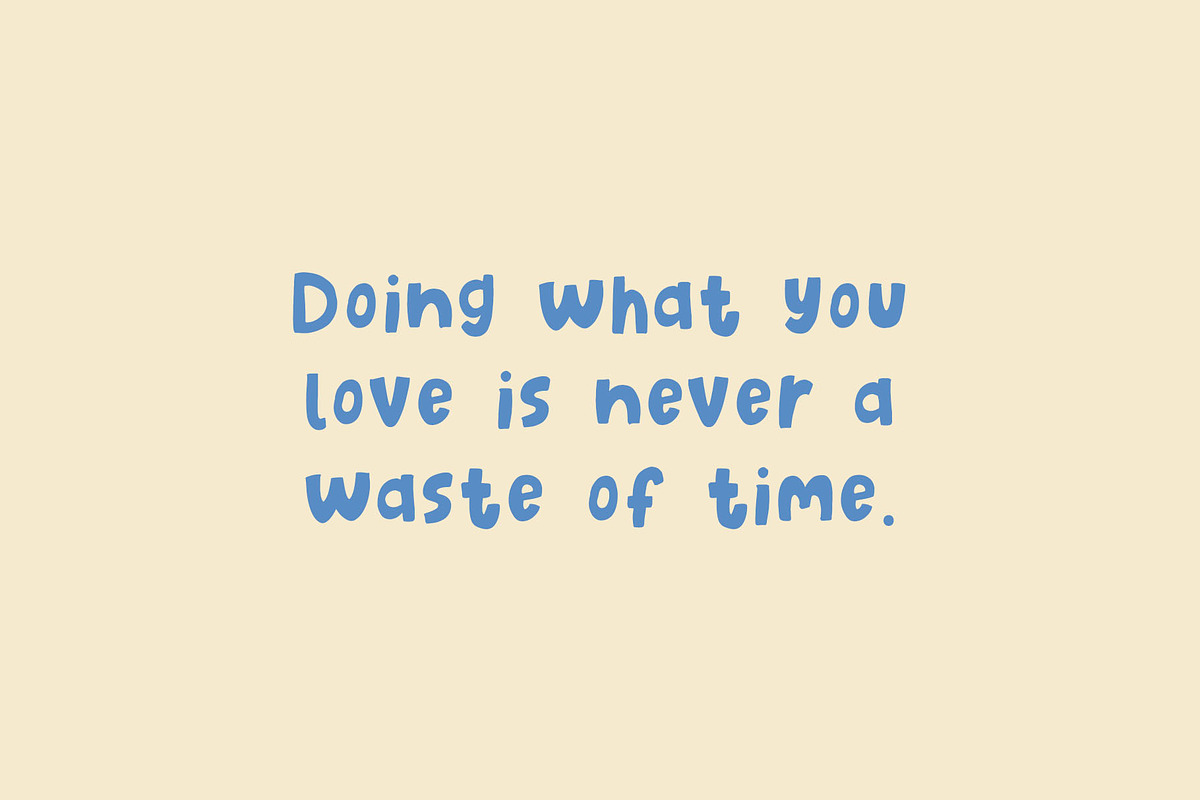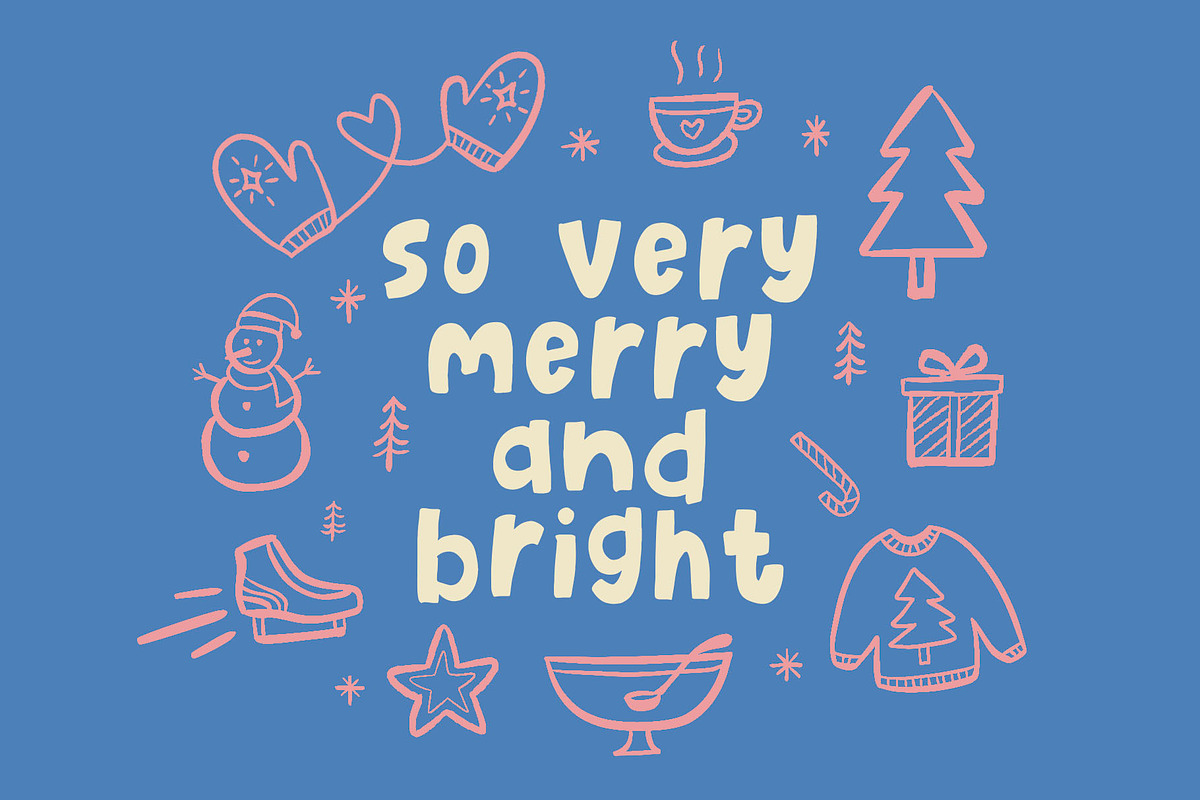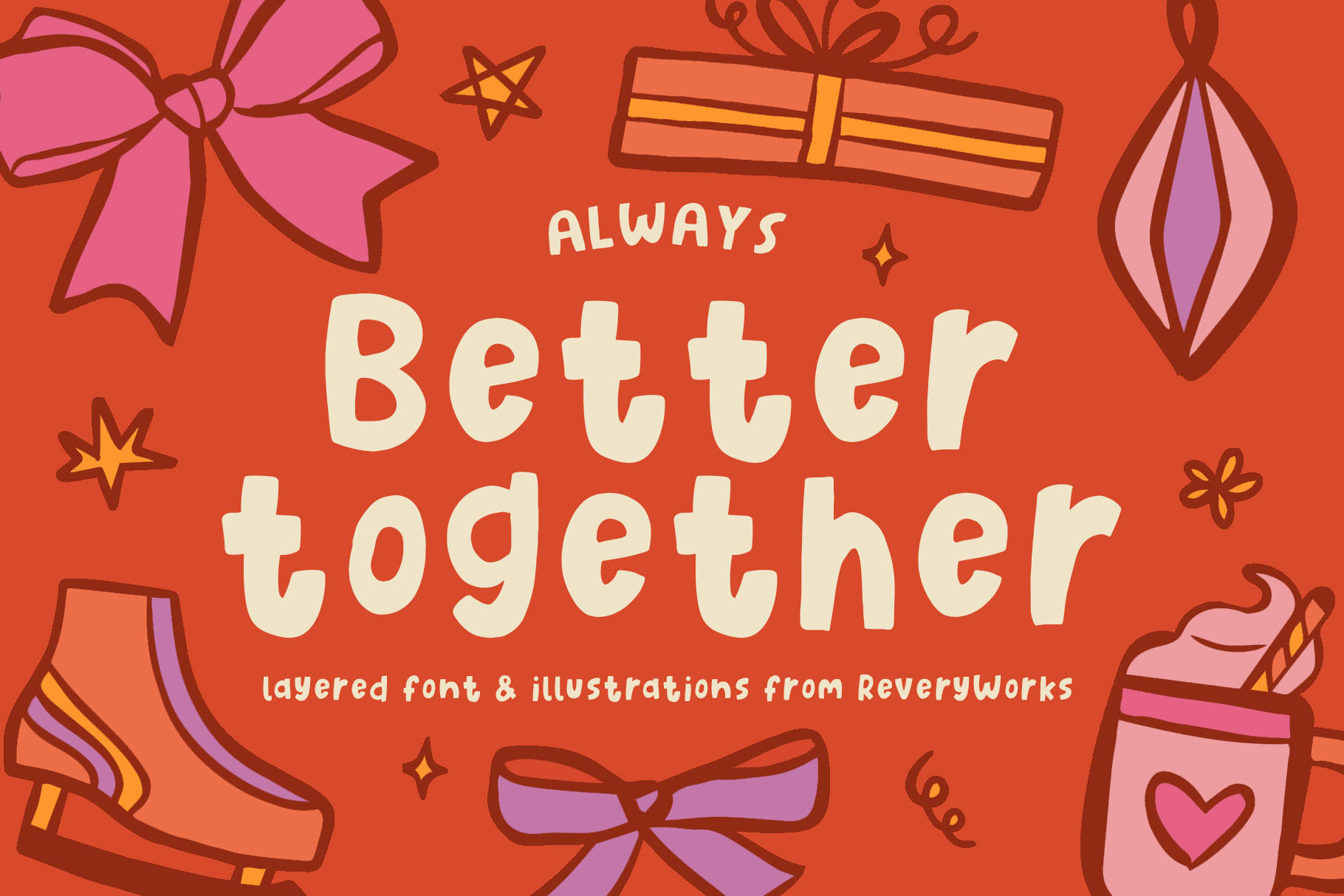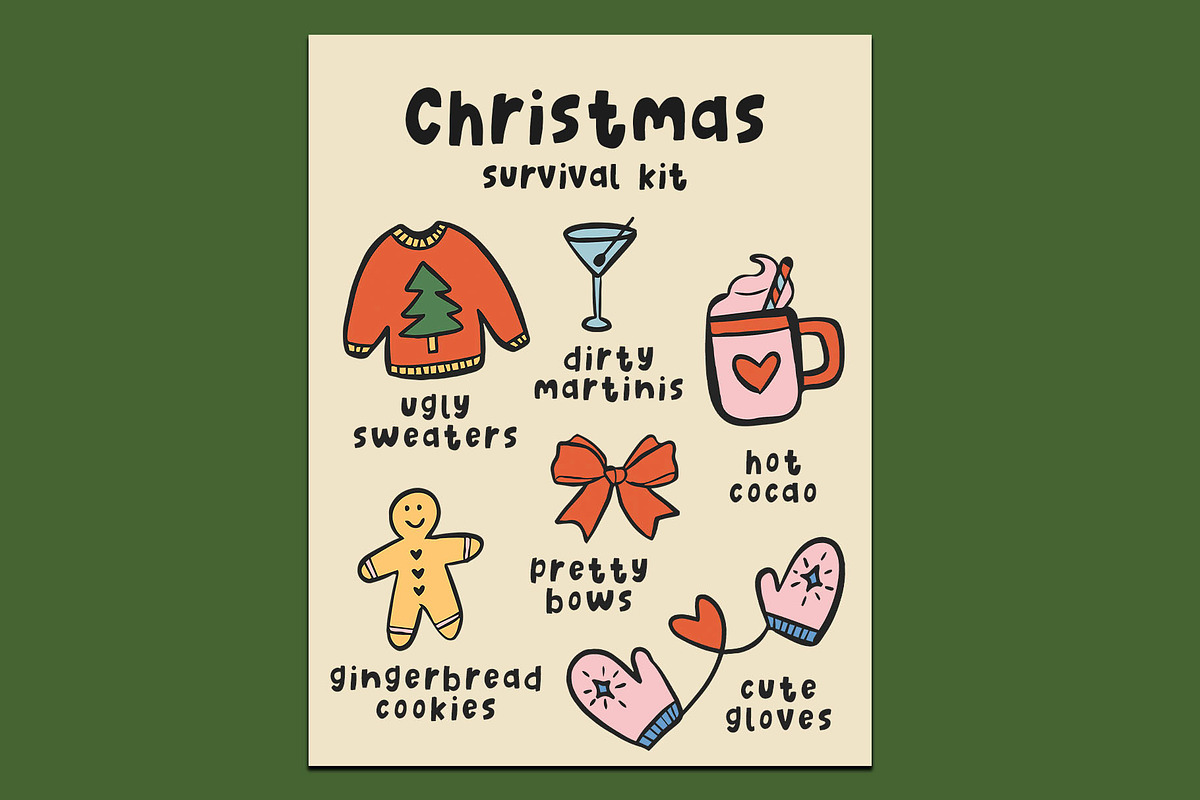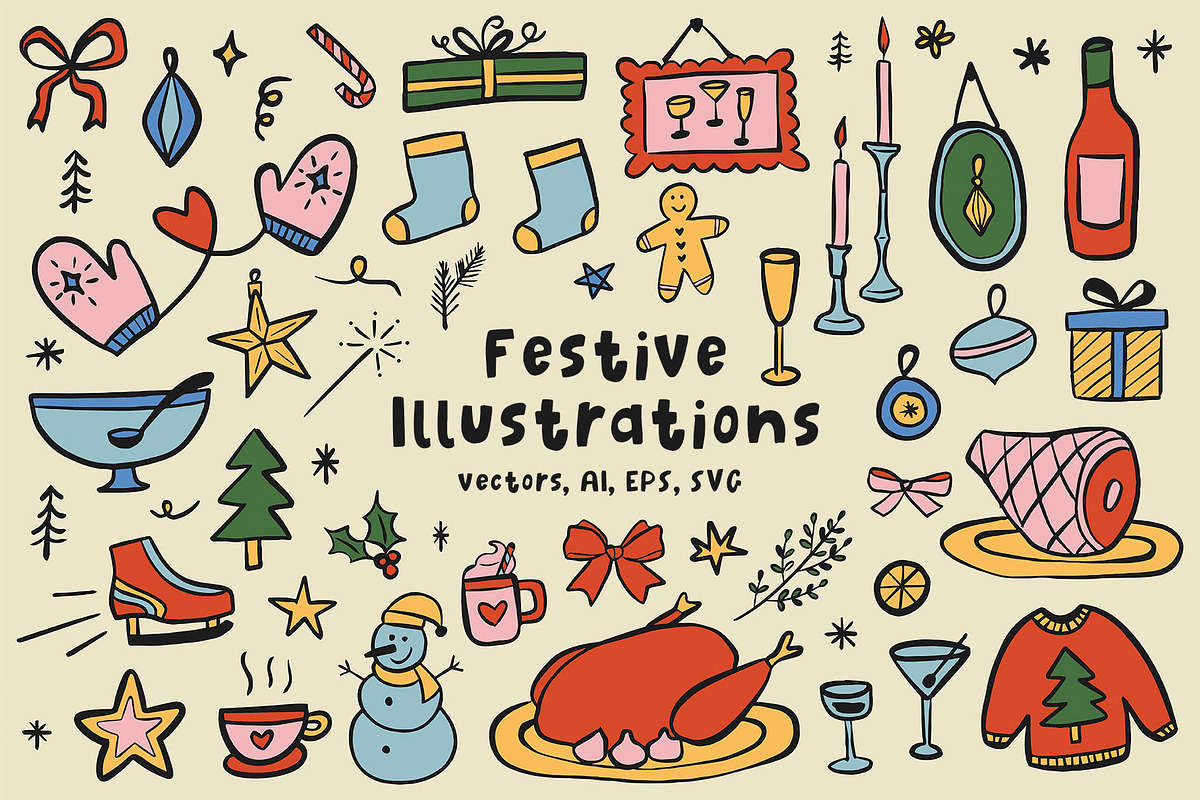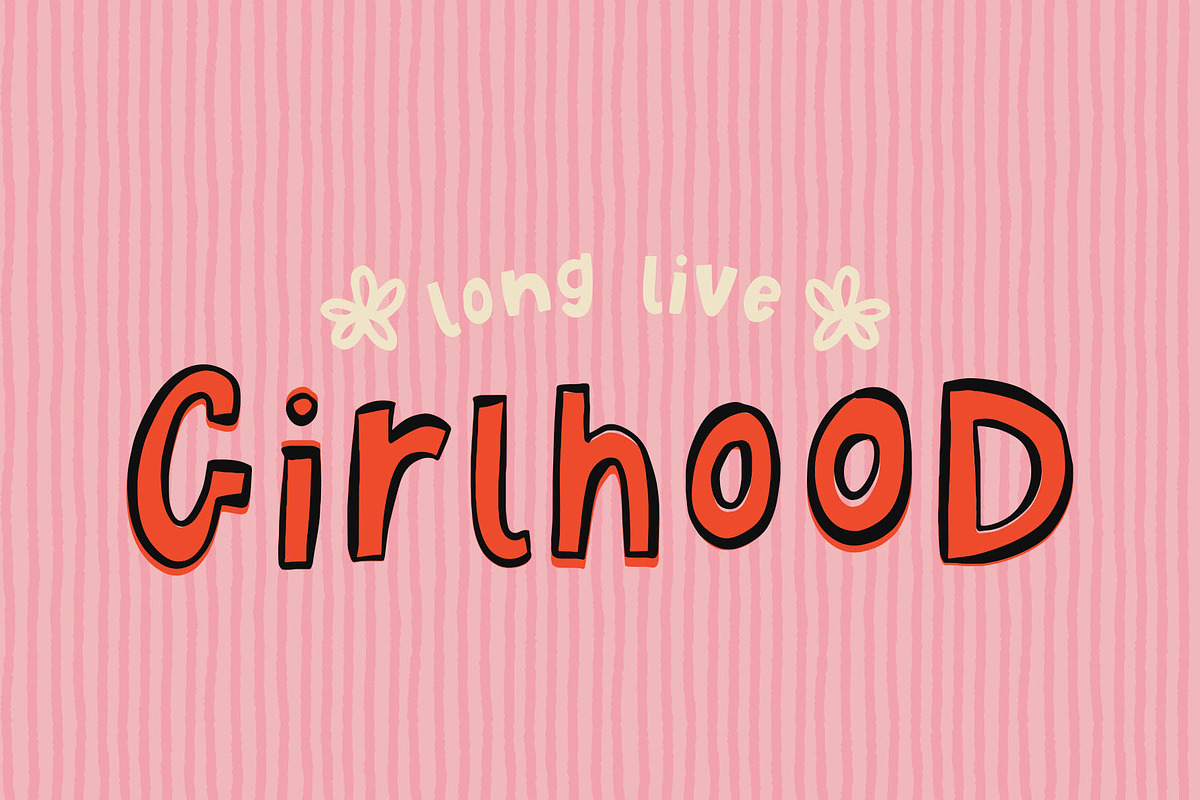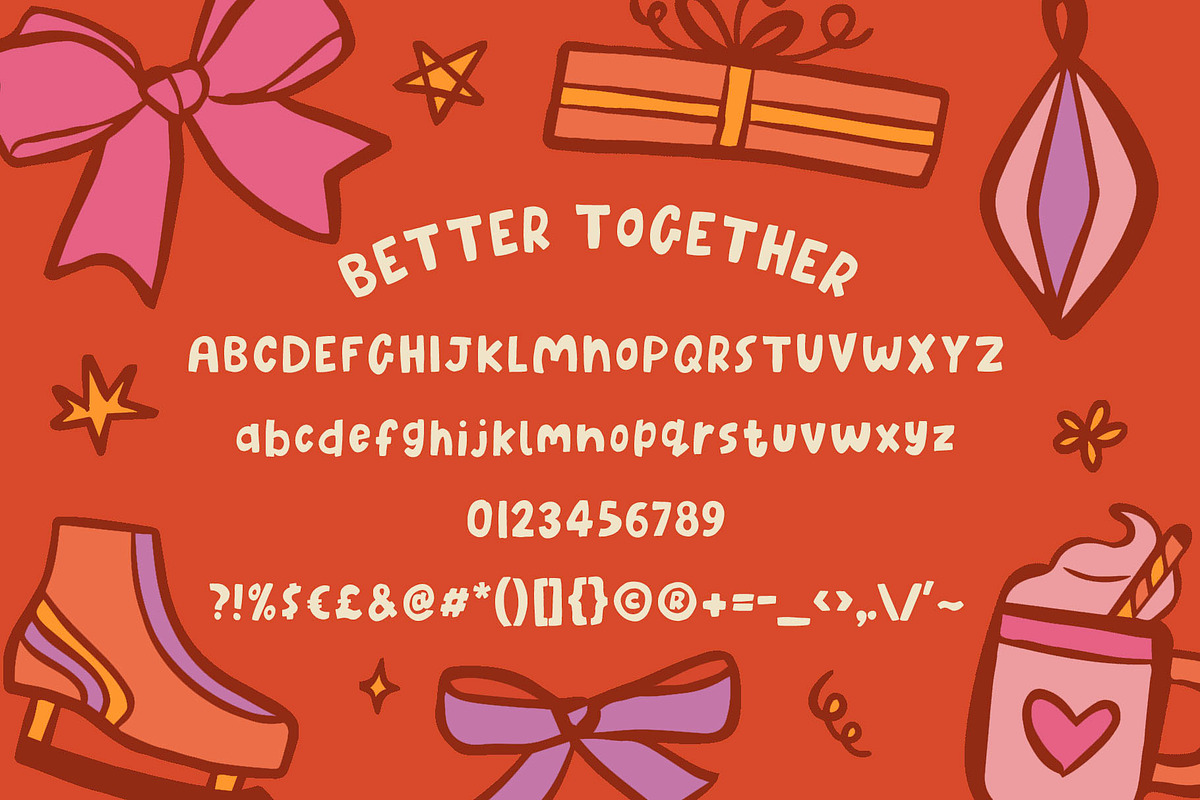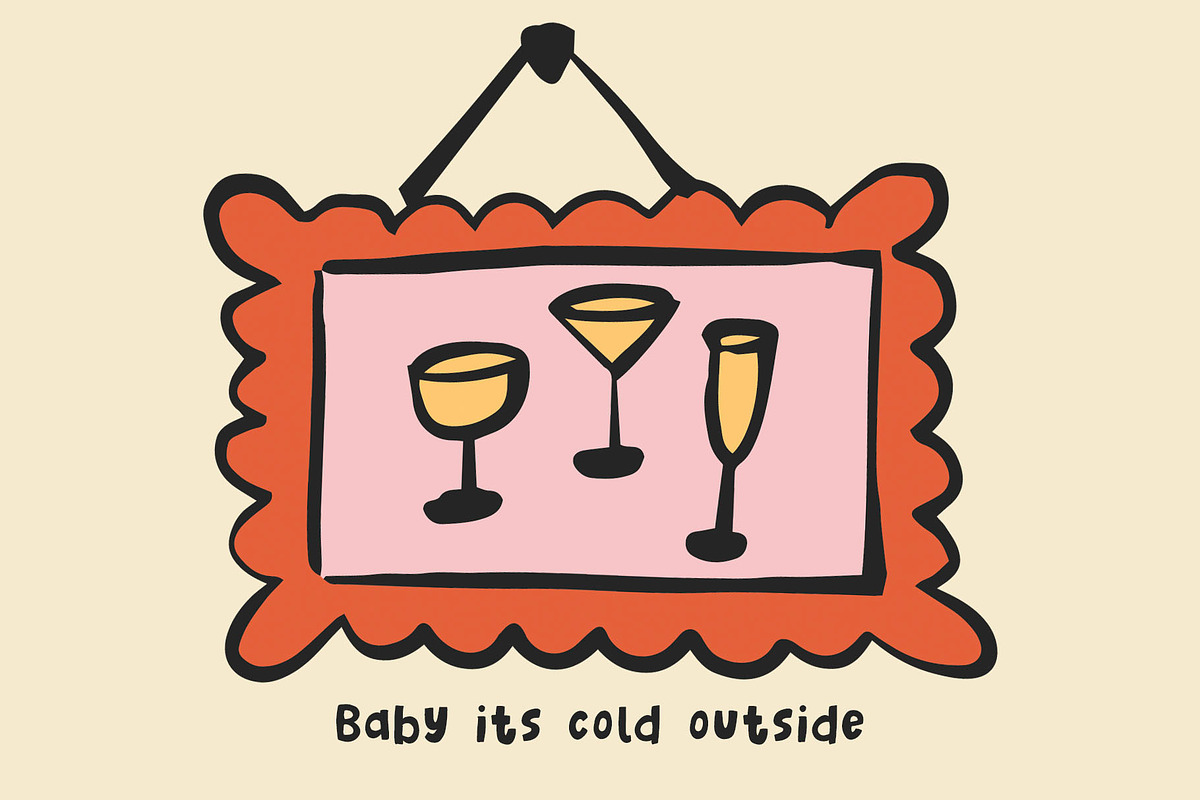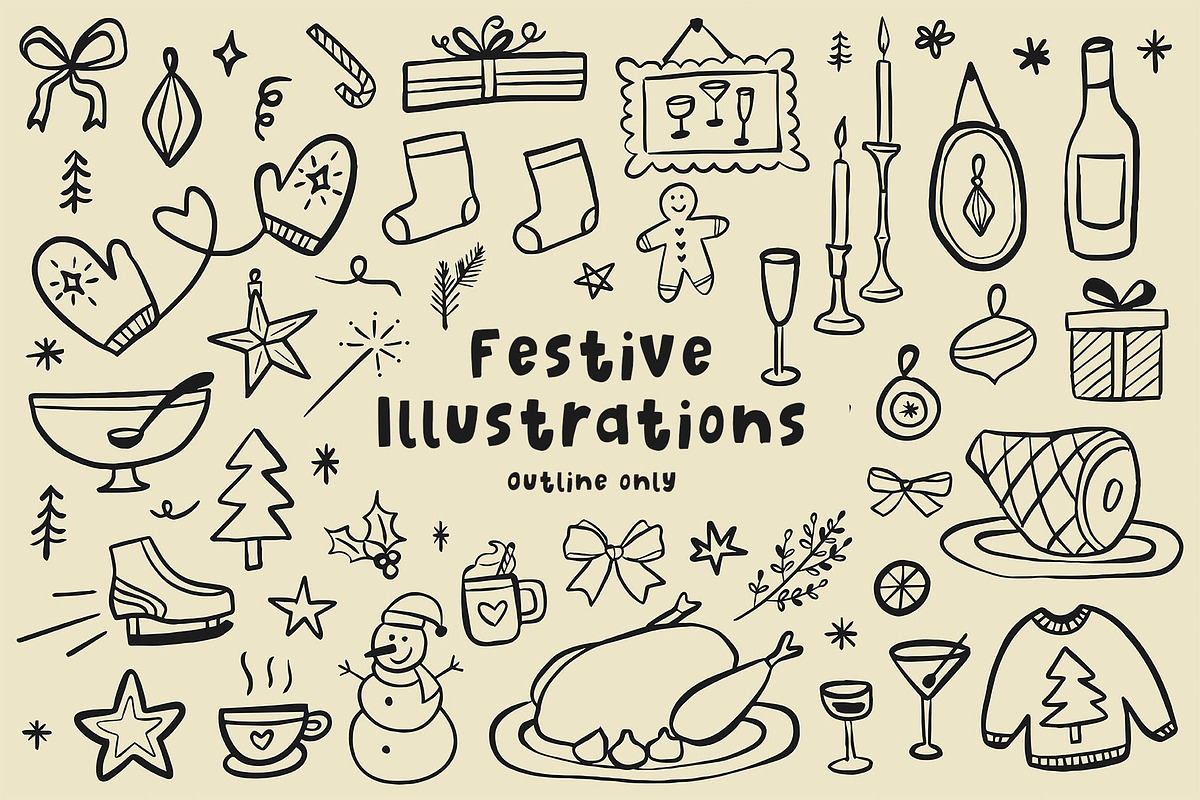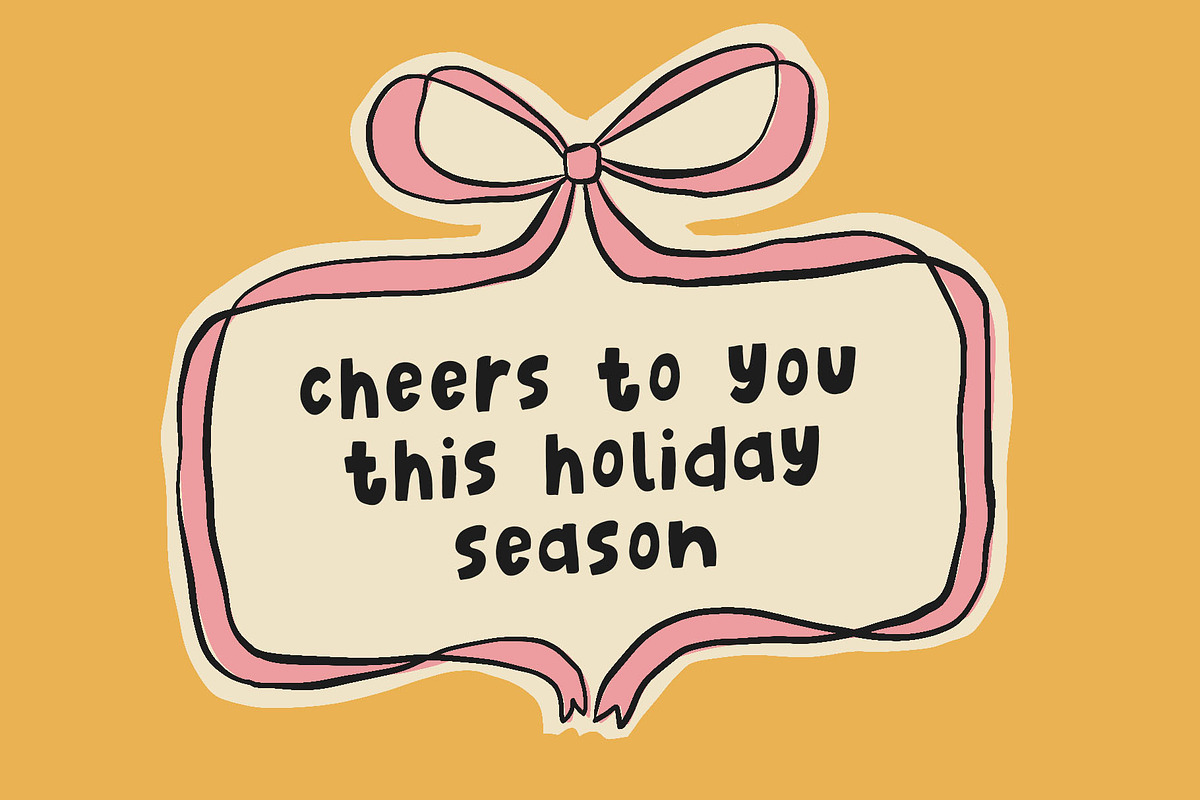
Better Together Fonts & Illustration
Hi Friends! Introducing Better Together fonts and illustrations! This handwritten font comes in two versions: Regular & Outline. Use the regular version on its own or layer it with the hand drawn outline font for a custom look. Pair it with some of the festive illustrations included and voila!